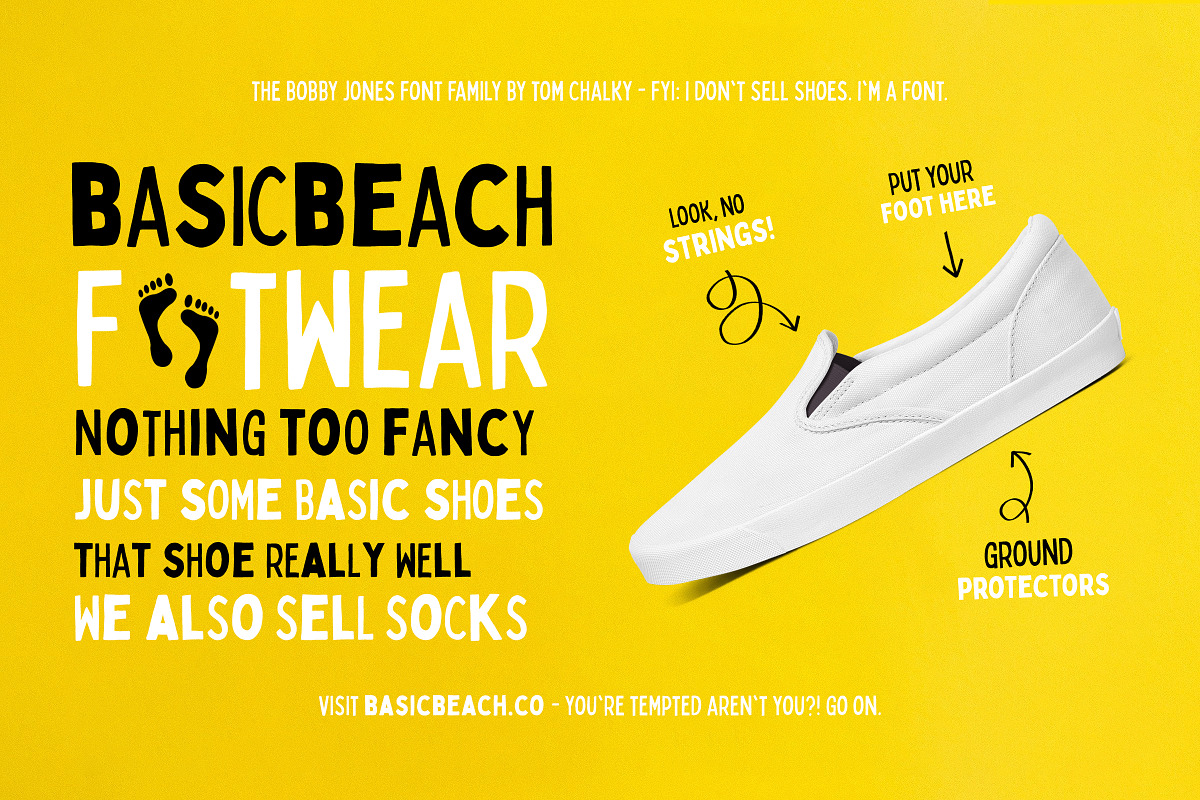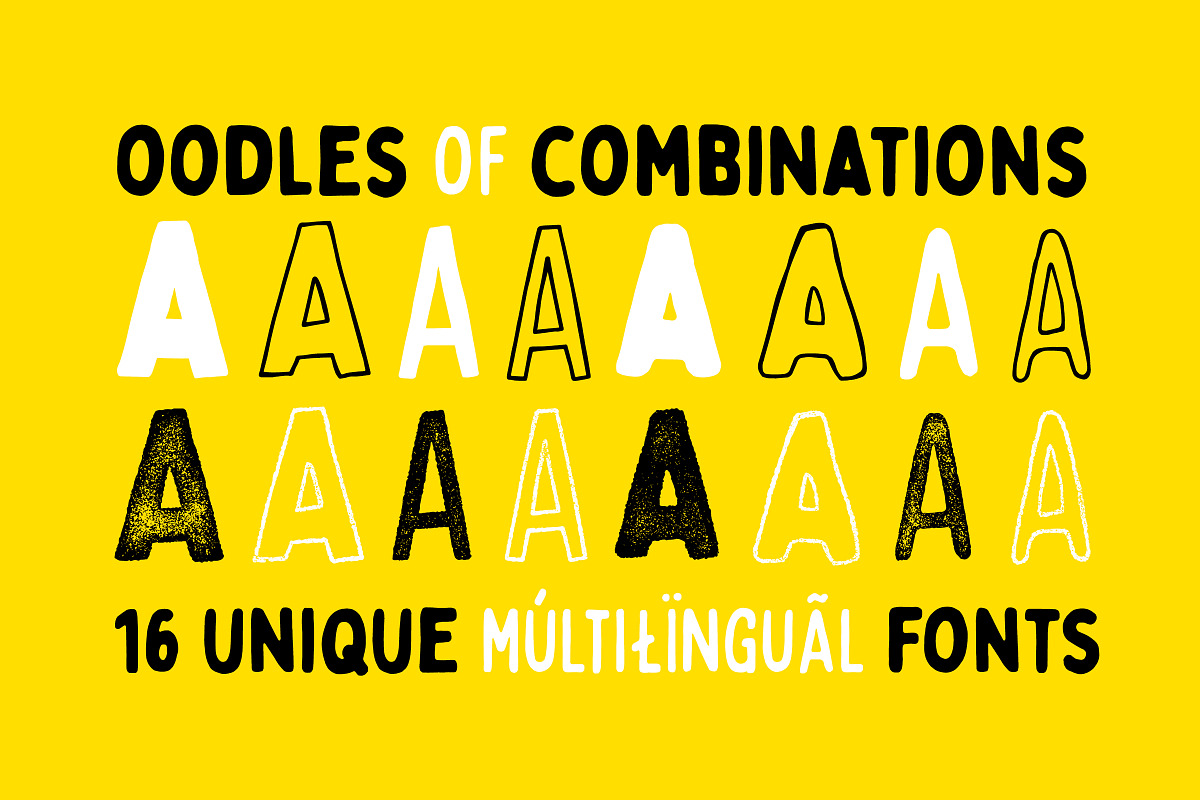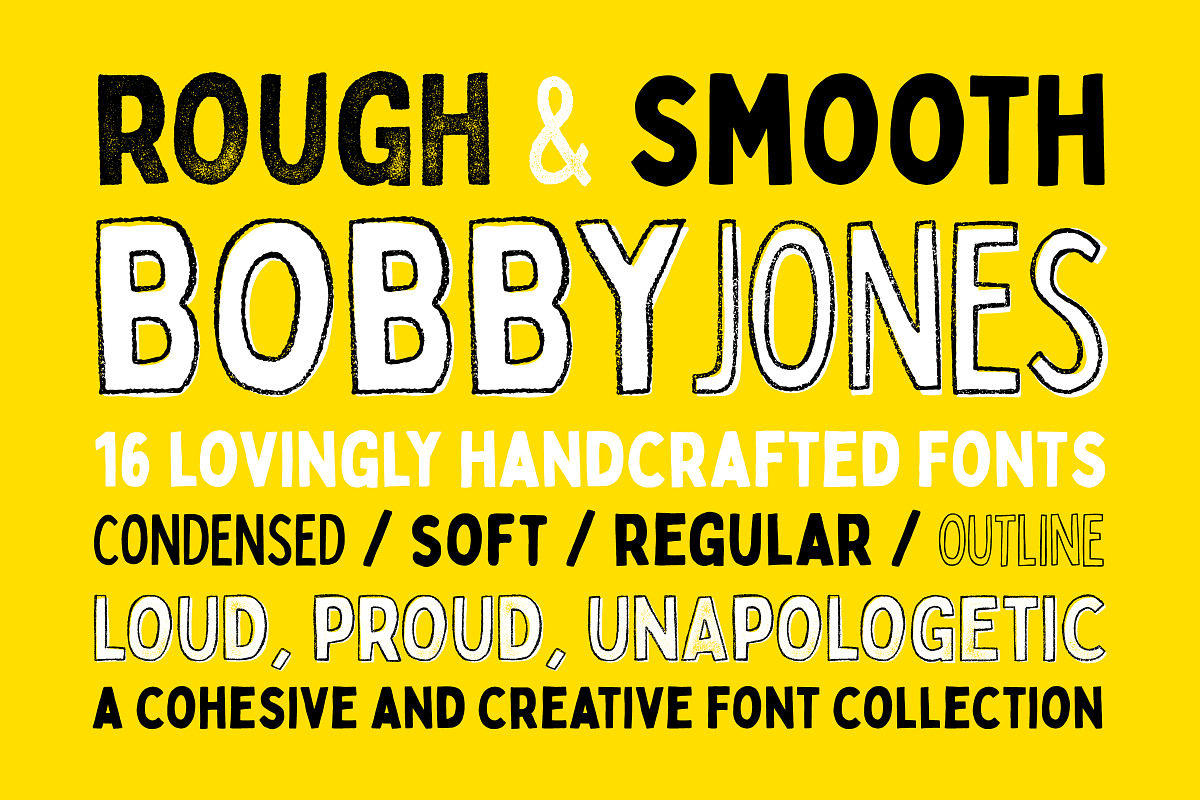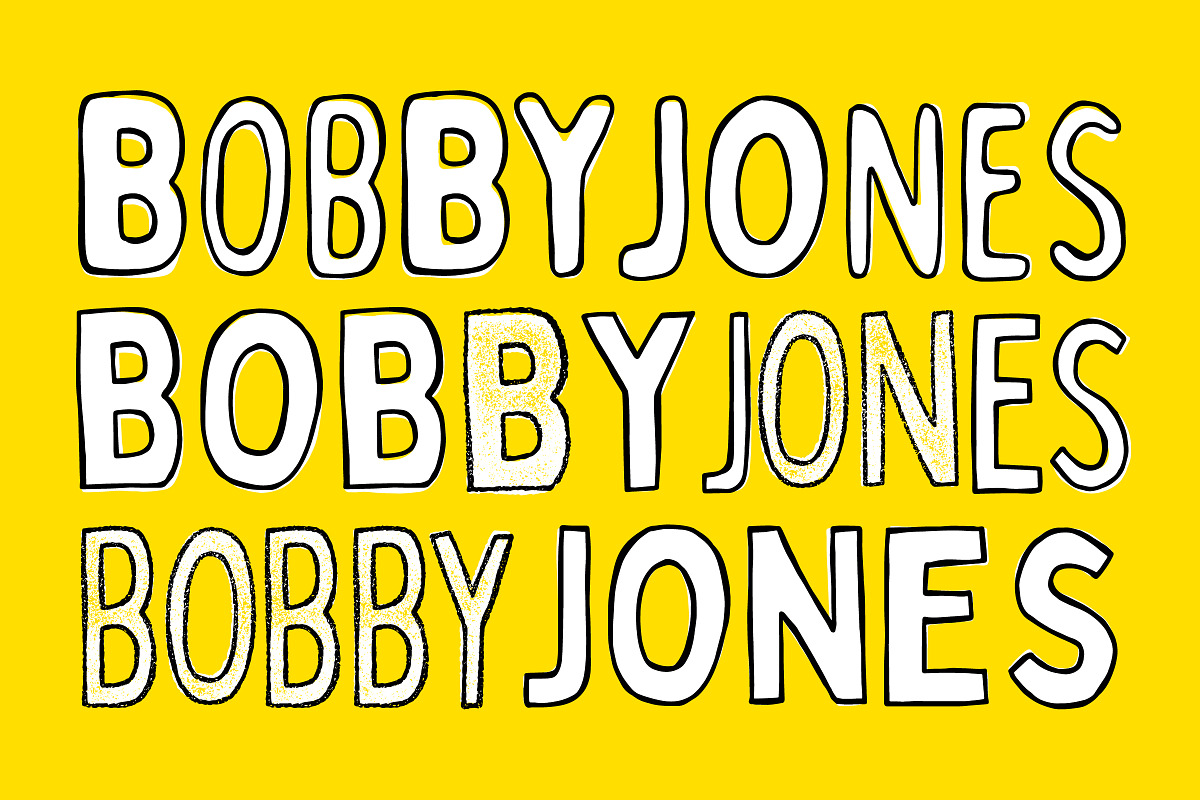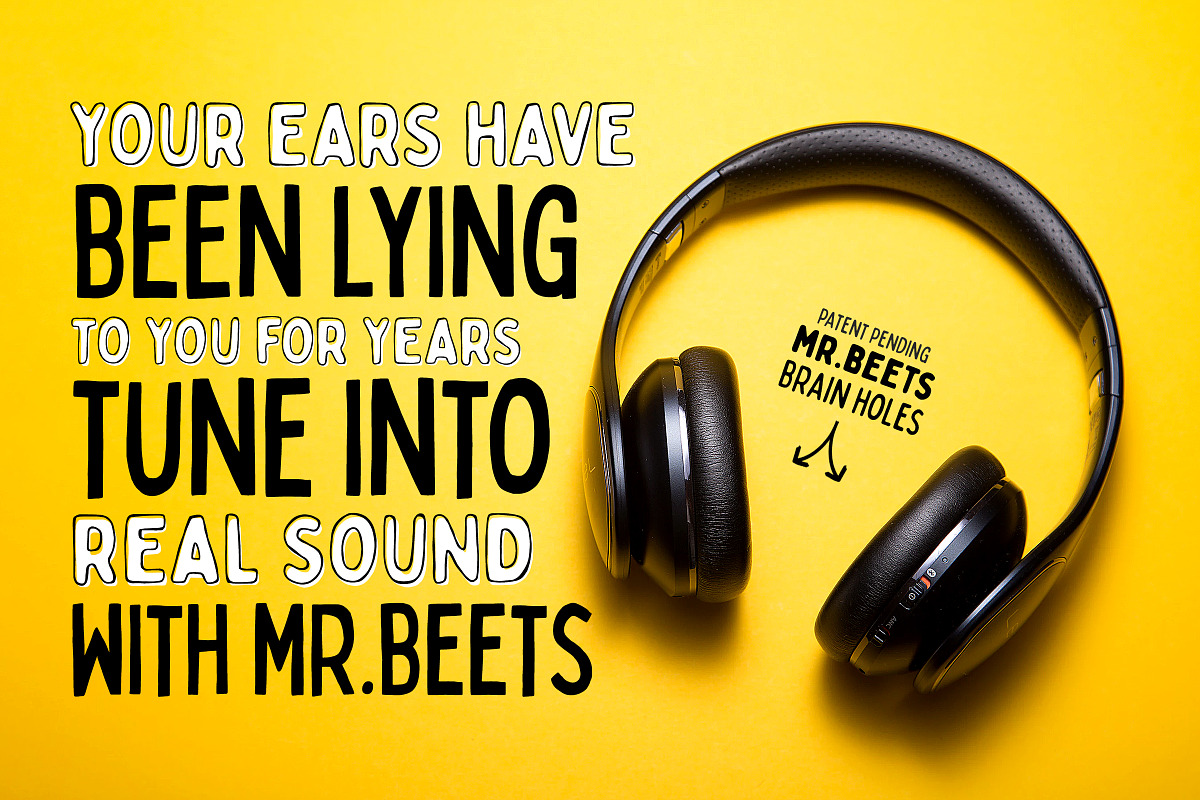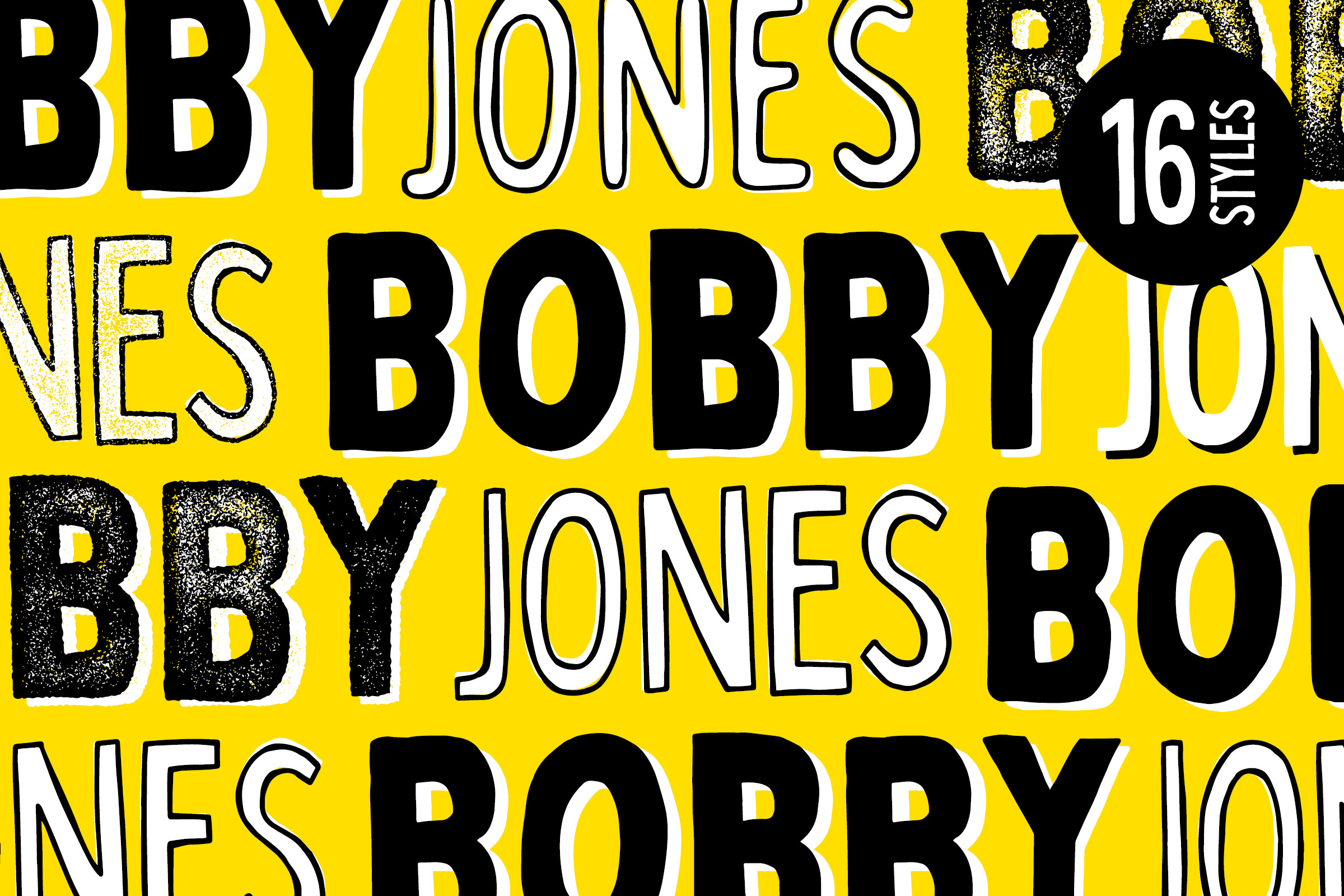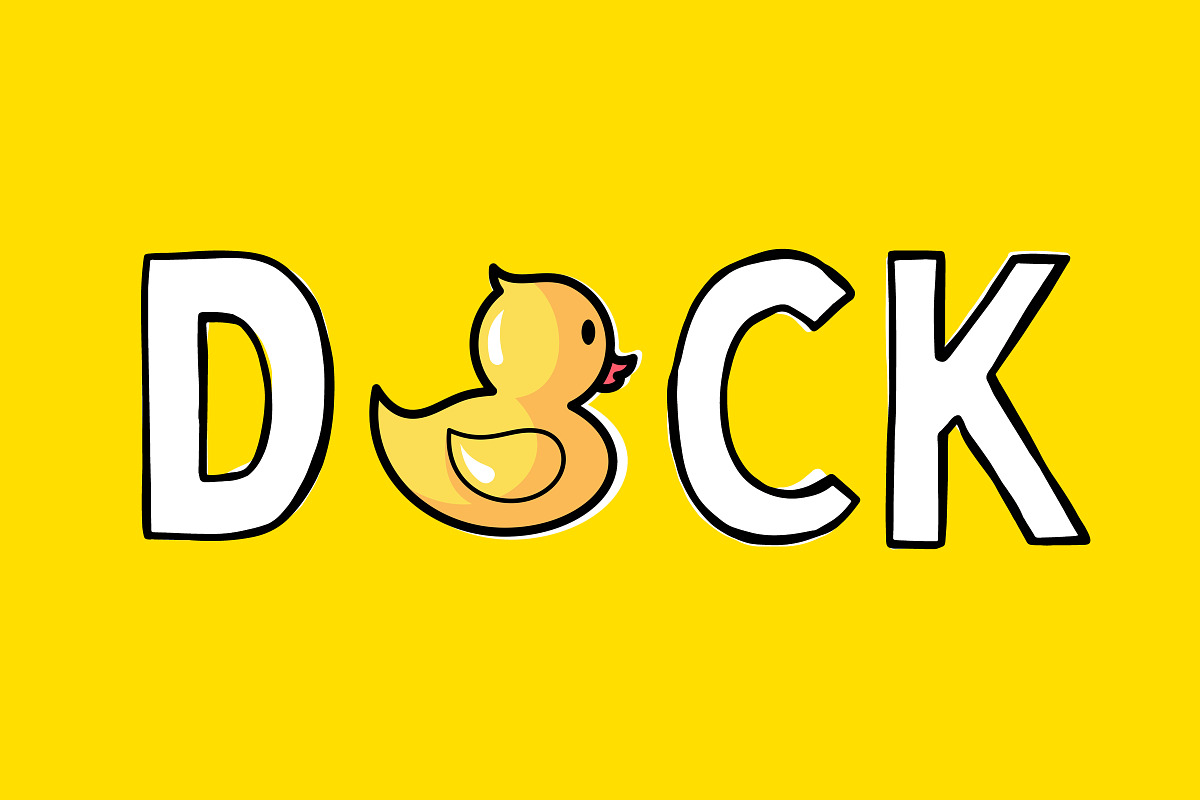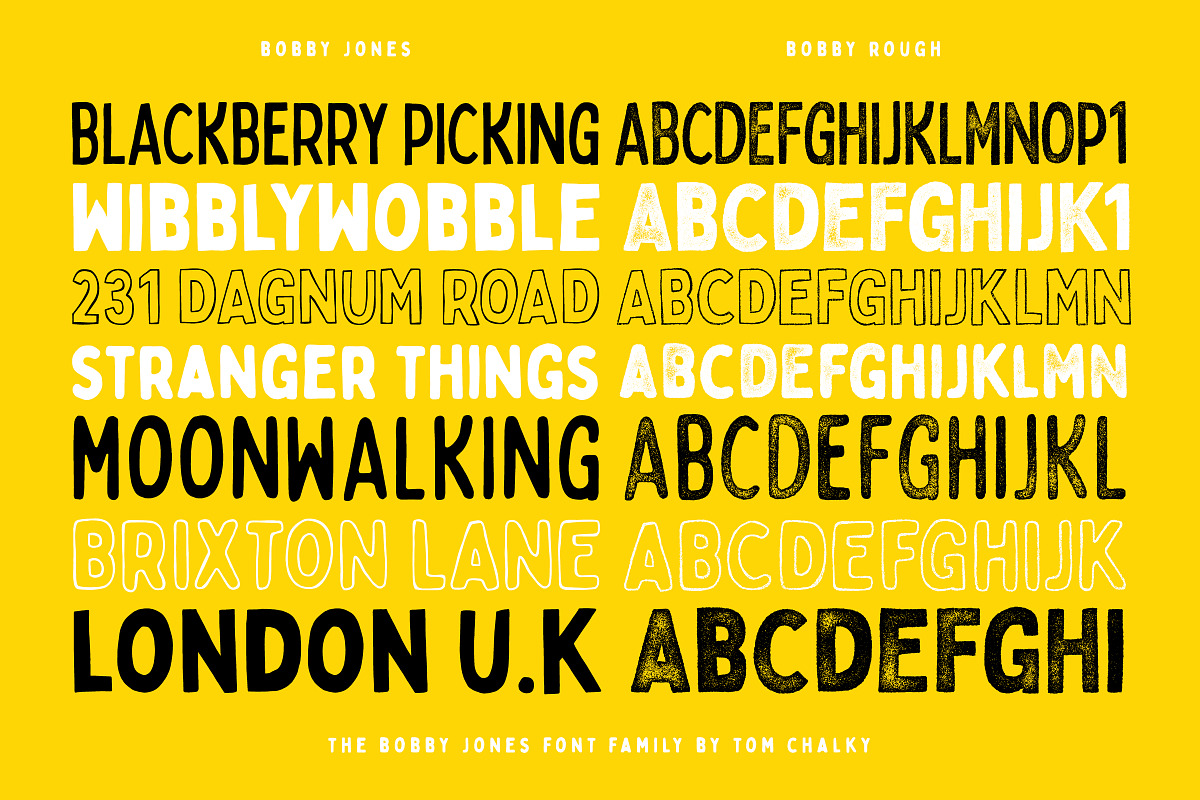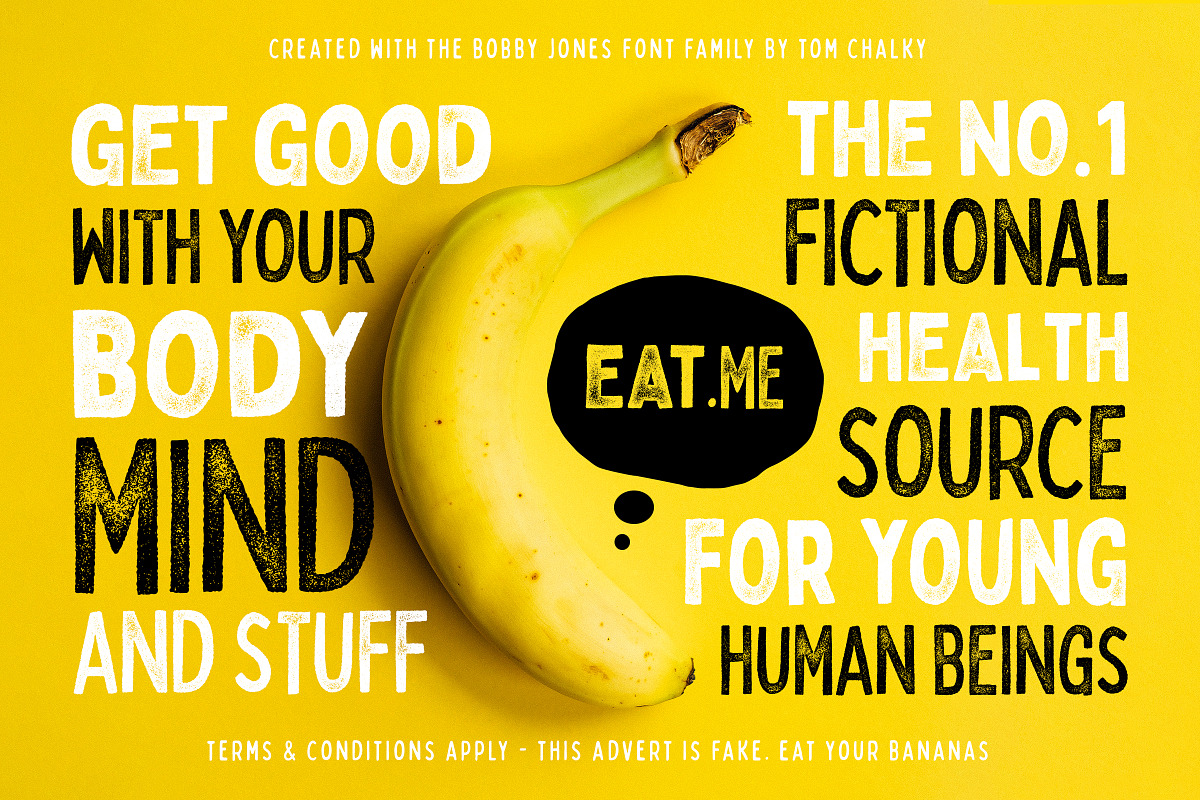
Bobby Jones - 16 Fonts
Introducing The Loud & Proud Bobby Jones Font Collection
Inside you'll find 16 quirky handcrafted fonts, oozing with personality, ripe and ready to take center stage within a variety of creative and fun design projects. If you're looking to grab eyeballs with an ad campaign, a logo design, apparel, printed stationery, and all that other good stuff, then worry not. Bobby has you covered.
We all come with imperfections and Bobby is no exception! His outlines are slightly off, his corners are irregular, his straights aren't straight, but he's cool with it. In fact, he's too busy strutting his stuff.
Each of the fonts listed below boasts multilingual glyph ranges and their own individually handcrafted outline style! (16 fonts in total!)
- Bobby Jones - The original Bobby.J
- Bobby Jones Soft - A rounded version of the above
- Bobby Jones Condensed - The thinner and leaner sibling to Bobby Jones
- Bobby Jones Condensed Soft - A rounded version of the above
- Bobby Rough - A high-res textured version of the original
- Bobby Rough Soft - A textured version of Bobby Jones Soft
- Bobby Rough Condensed - A textured version of Bobby Jones Condensed
- Bobby Rough Condensed Soft - A textured version of Bobby Jones Condensed Soft
Designed a little over five years ago, the original Bobby Jones Font was my first ever product. This new and improved version has been entirely redesigned from bottom to top. Holding dearly to the punch that the original had while adding a whole lot of extra power.